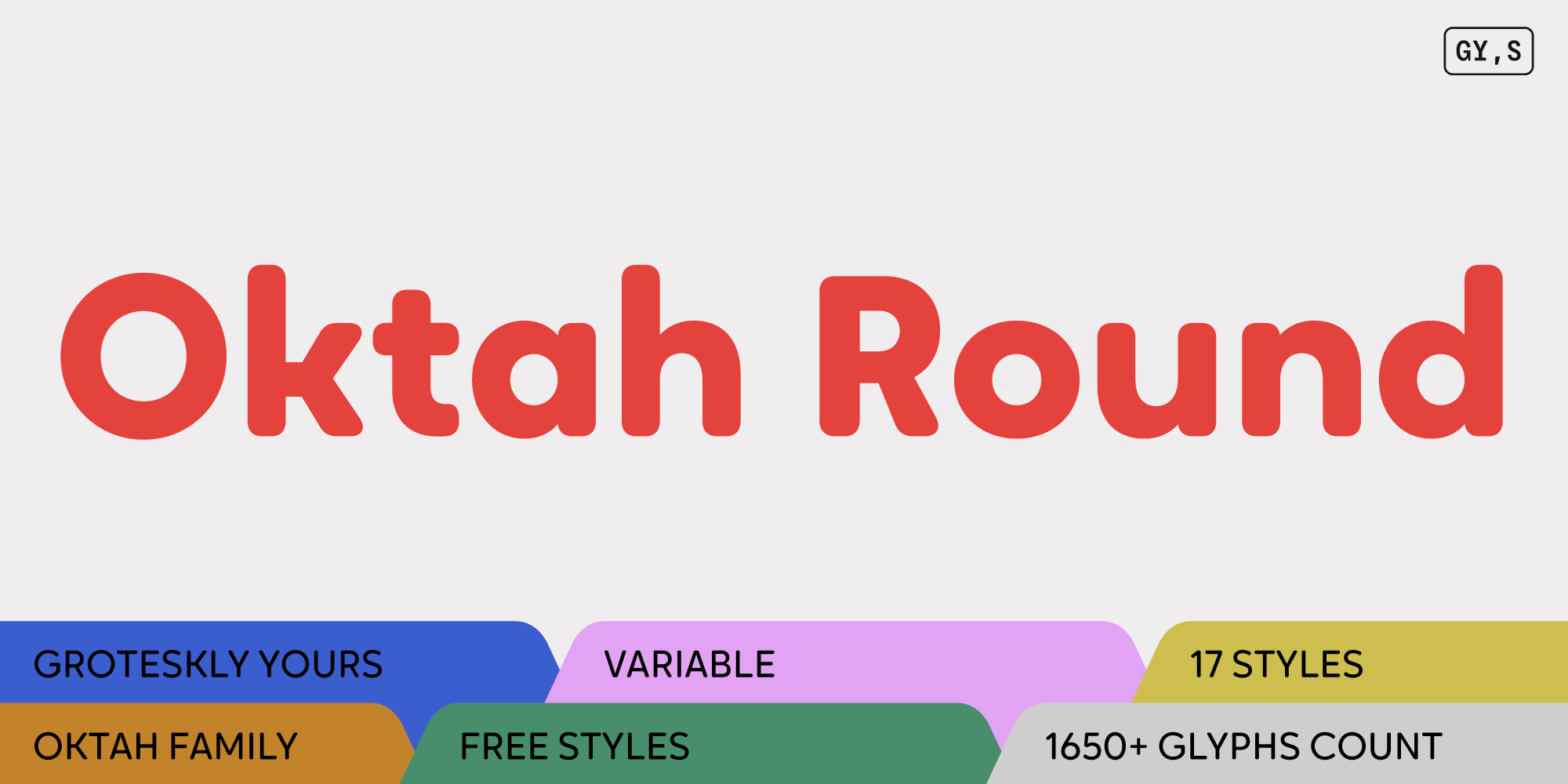
Oktah Round Font is perfect for modern branding, tech startups, mobile app interfaces, children's educational materials, friendly logos, contemporary web design, packaging design, social media graphics, and digital marketing campaigns. This contemporary rounded typeface brings a fresh, approachable feel to any design project that needs to communicate innovation and accessibility.
What makes Oktah Round Font exciting is its perfectly balanced combination of modern sophistication and friendly approachability. The font features smooth, rounded corners that soften the overall appearance while maintaining crisp, clean lines that ensure excellent readability across all digital platforms. Its geometric foundation provides structural integrity while the rounded elements add warmth and personality, making it ideal for brands that want to appear both professional and welcoming.
The Oktah Round Font family typically includes multiple weights ranging from light to bold, with both regular and italic variations. The complete family may feature extended character sets including international language support, numbers, symbols, and special punctuation marks for comprehensive typographic flexibility.
Whether you're designing cutting-edge interfaces or creating memorable brand identities, Oktah Round Font Free Download delivers exceptional versatility and visual impact. This typeface excels in both headlines and body text applications, maintaining its distinctive character while ensuring optimal legibility at any size. The font's contemporary aesthetic makes it particularly suitable for technology companies, creative agencies, and forward-thinking brands. Its rounded personality helps humanize digital communications while its clean geometry ensures professional presentation across all media formats.